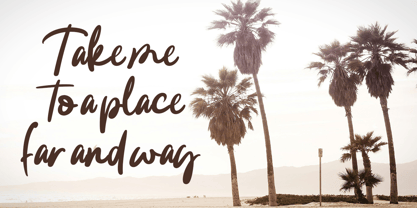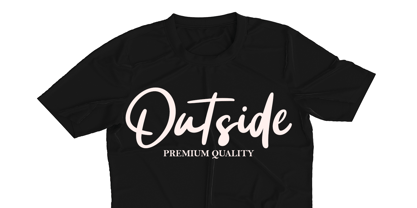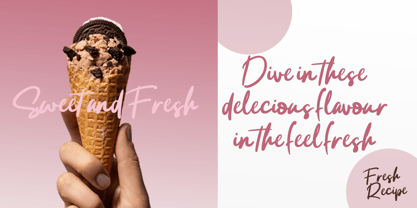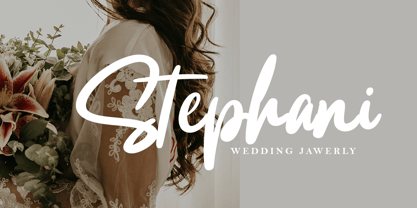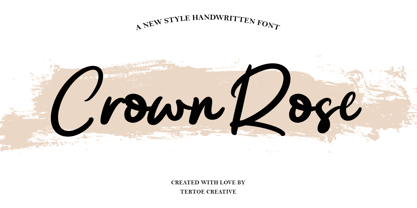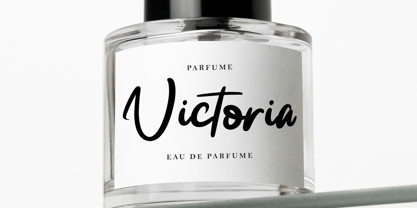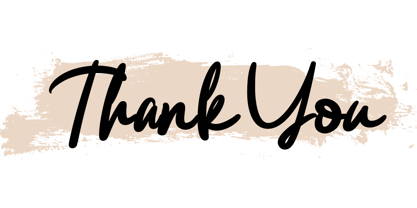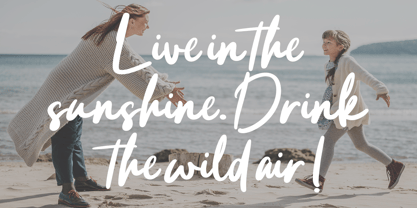
Crown Rose
by Tertoecreative
The Crown Rose Font Family was designed by Khai Dir and published by Tertoecreative. Crown Rose contains 1 styles. More about this family
Crown Rose is a contemporary geometric designed to bring warmth, clarity, and confidence to everyday communication. Built on a precise geometric foundation, it balances structured forms with softened details, generous proportions, and subtle optical refinements, creating a voice that feels approachable, refined, and quietly distinctive.
Its clean, contemporary shapes give the family a confident architectural presence, while carefully crafted curves preserve the warmth and friendliness that inspired its name.
A generous x-height, open counters, and low contrast ensure excellent readability across a wide range of sizes, from interface design and editorial layouts to branding, packaging, signage, and digital products, The complete system for projects that demand both range and consistency.
Designers: Khai Dir
Foundry: Tertoecreative